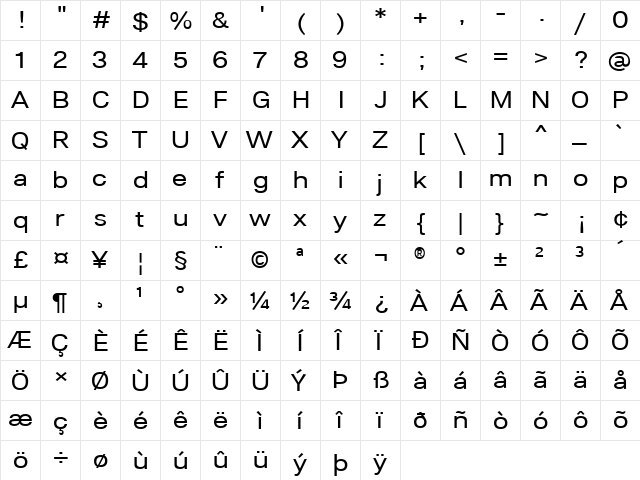
Lunchtype24 Expanded Regular
| Foundry | Steppot |
| Designer | Steppot |
Design Context for Lunchtype24 Typeface
Lunchtype24 takes a measured approach to typography — its balanced proportions and neutral character make it a reliable workhorse for both digital and print work.